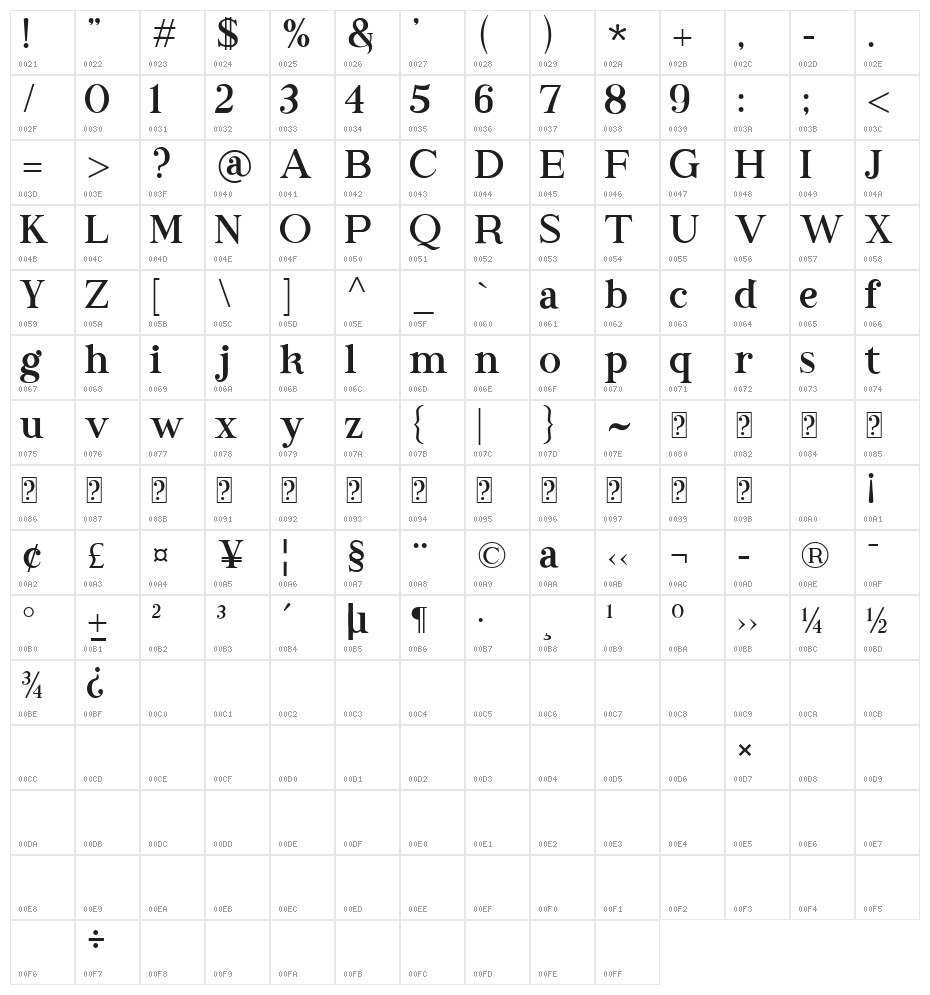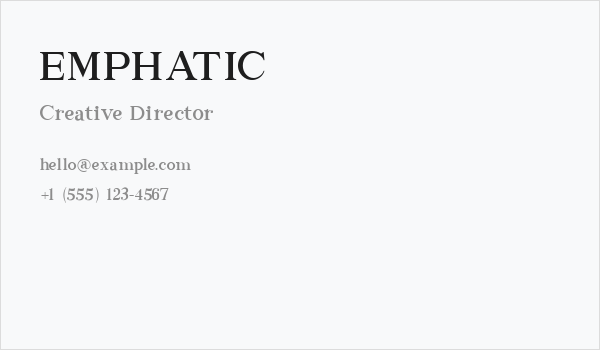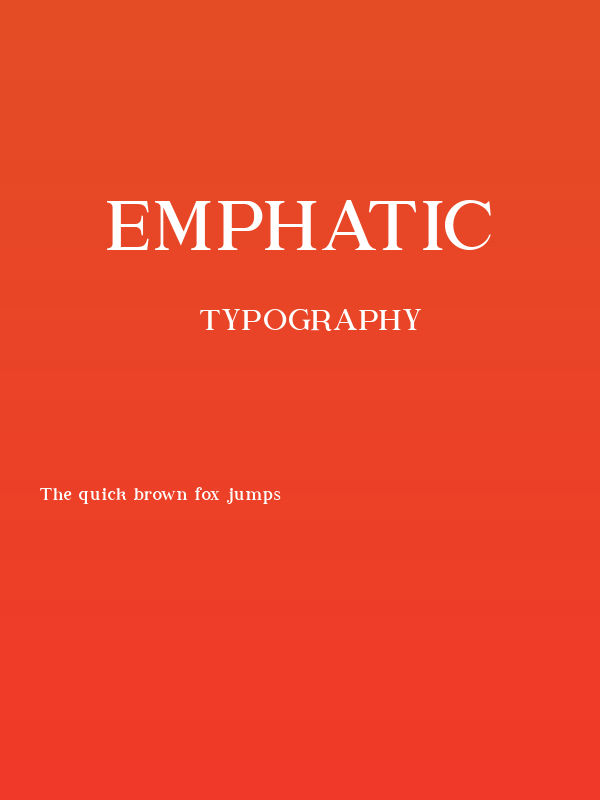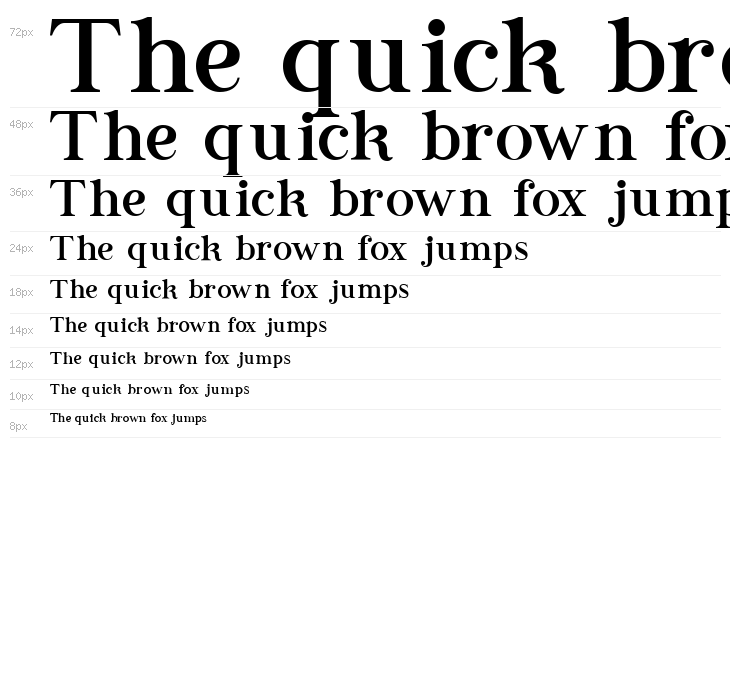
EMPHATIC Font
EMPHATIC Description
This font features a classic serif style with elegant and pronounced serifs that give it a timeless and sophisticated appearance. The characters are well-defined with a medium contrast between thick and thin strokes, enhancing readability while maintaining a stylish look. The uppercase letters are bold and commanding, while the lowercase letters offer a softer, more approachable feel. The numerals are clear and distinct, making them suitable for both text and display purposes. Special characters are included, adding versatility for various design needs.
| Proposed Projects | Ideal for editorial design, book covers, formal invitations, and branding projects that require a touch of elegance and tradition. |